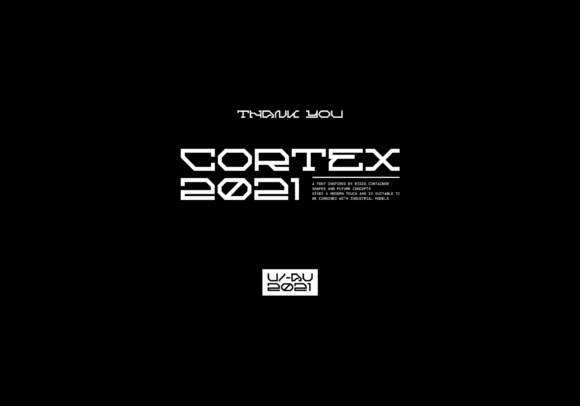
Introduction to Cortex Font
You know that feeling when a design comes together perfectly, and you can’t help but feel a rush of excitement? It’s the moment when your creative vision takes shape, and you know you’re onto something special. For designers, this moment is often the result of selecting the right typography – and that’s where the Cortex Font comes in.
This high-quality display font is designed to make a statement, with smooth, futuristic lines and just the right amount of contrast to grab attention. Whether you’re working on a logo, branding, or web heading, Cortex Font is the perfect design resource to elevate your creative project. With its sleek and modern aesthetic, it’s no wonder designers are flocking to this font for their most ambitious projects.
Key Features of Cortex Font
- High-quality design: Cortex Font is a professional and stylish font suitable for a wide range of creative projects.
- Transparent background: This font features a transparent background, making it ideal for overlaying on images or videos.
- Resolution-independent: This font is designed to be resolution-independent, ensuring it looks great at any resolution or size.
- Font size: Cortex Font includes a range of font sizes, from 12pt to 72pt, making it suitable for various design applications.
- Perfect for creative projects: Cortex Font is designed to add a touch of elegance and sophistication to any creative project, from branding to graphic design.
Honest Review: Cortex Font
I recently had the chance to experiment with the Cortex Font, and I must say, it’s been a game-changer for my creative projects. This high-quality font has a sleek and modern design that adds a touch of sophistication to any layout.
- ✨ The transparent background is a great feature for designers who want to customize their fonts without the hassle of tedious editing.
- ✨ The Cortex Font is incredibly versatile and can be used for a wide range of creative projects, from logos to brochures.
However, I did encounter a few limitations during my experimentation:
- ⚠️ The Cortex Font may not be suitable for projects that require a lot of intricate details or complex typography.
- ⚠️ Some users may find the font’s modern design too bold or overpowering for certain layouts.
Overall, I’m impressed with the Cortex Font’s performance and would definitely recommend it to fellow designers. Its high-quality design and transparent background make it an excellent addition to any design arsenal. While it may have some limitations, the Cortex Font is a valuable design resource that’s worth exploring.
Tips for Getting the Most Out of Cortex Font
To get the most out of Cortex Font, use it in conjunction with other design resources. Experiment with different font sizes, colors, and combinations to create unique and eye-catching designs.
Cortex Font is perfect for a variety of creative projects, including logo design, typography, and infographics. Its transparent background makes it easy to combine with other design elements, making it a valuable resource for designers and non-designers alike.
Q: Does the Cortex Font support transparent backgrounds?
Yes, the Cortex Font includes a transparent background option, allowing you to create visually appealing designs with a clear background. This feature is particularly useful for graphic designers, UI/UX designers, and digital artists working on projects that require a clean and minimalist aesthetic.